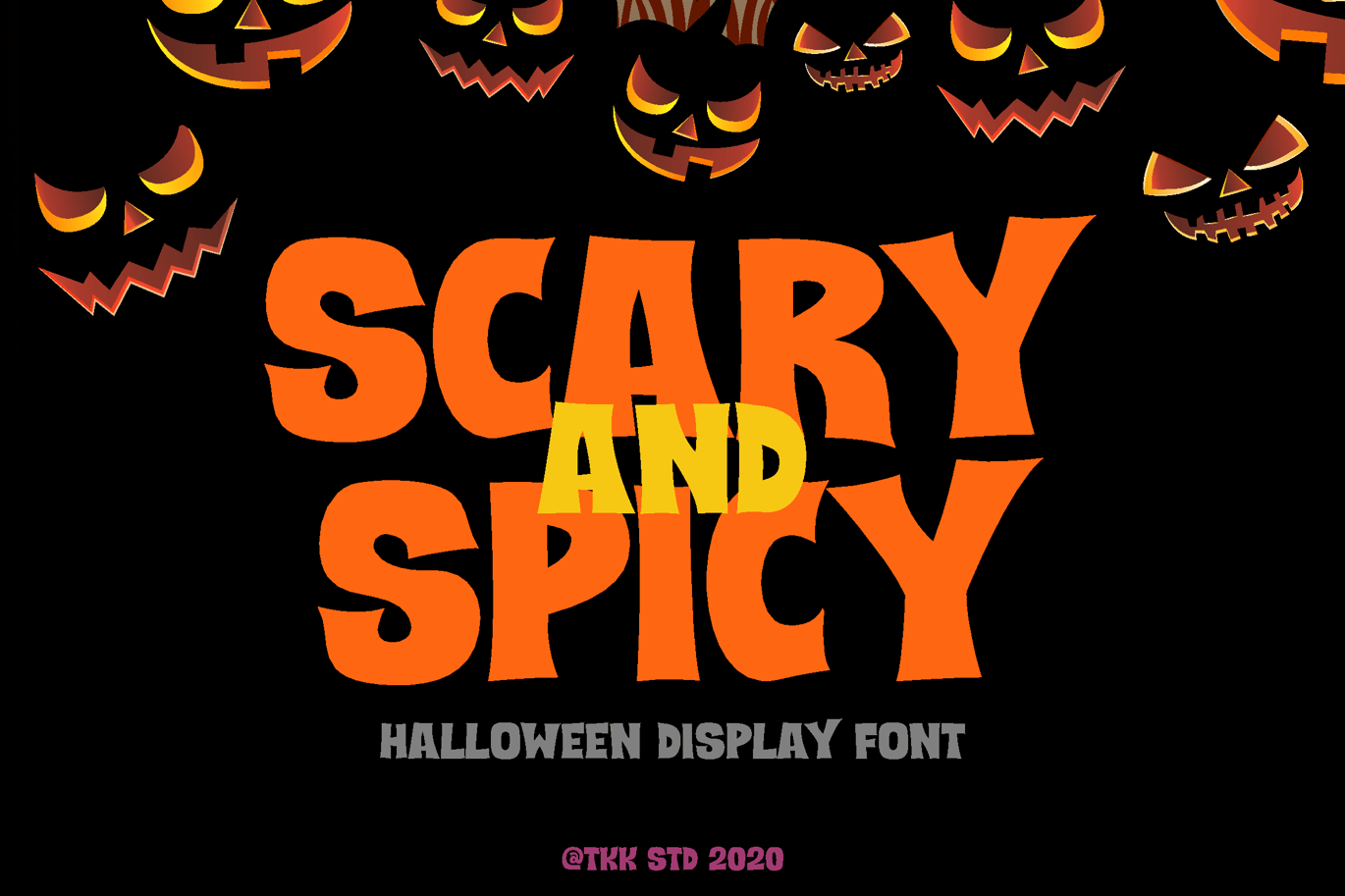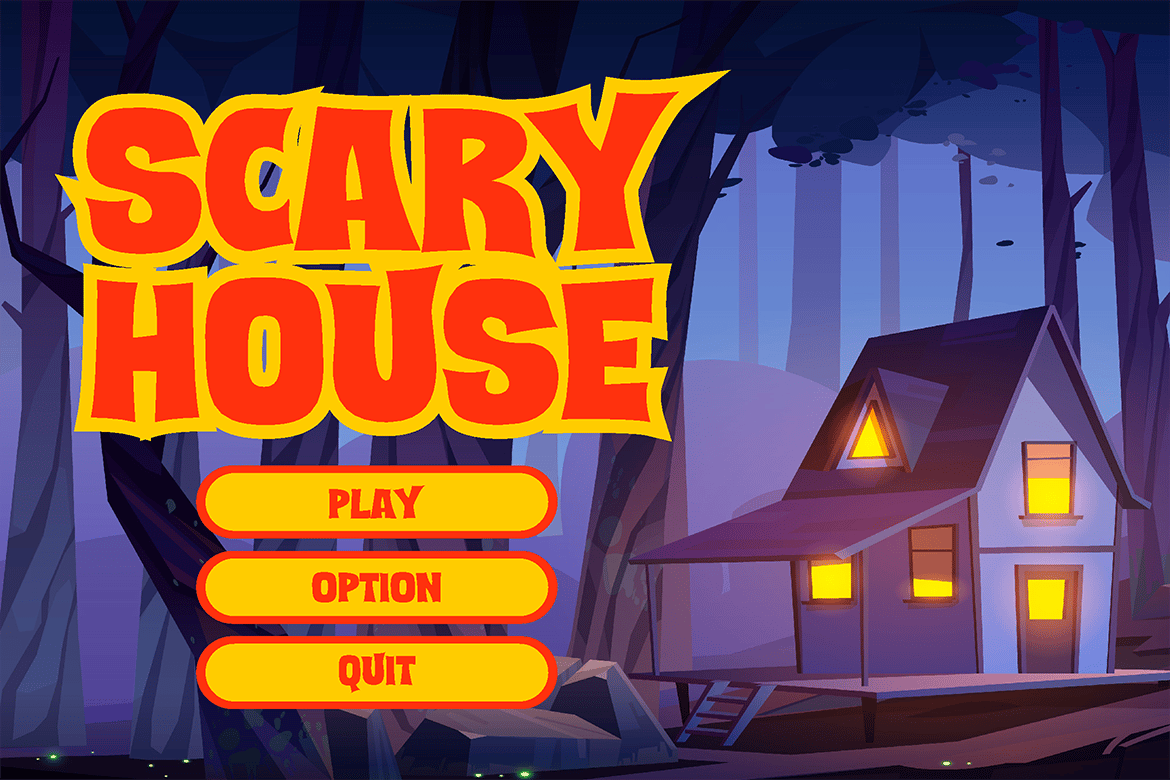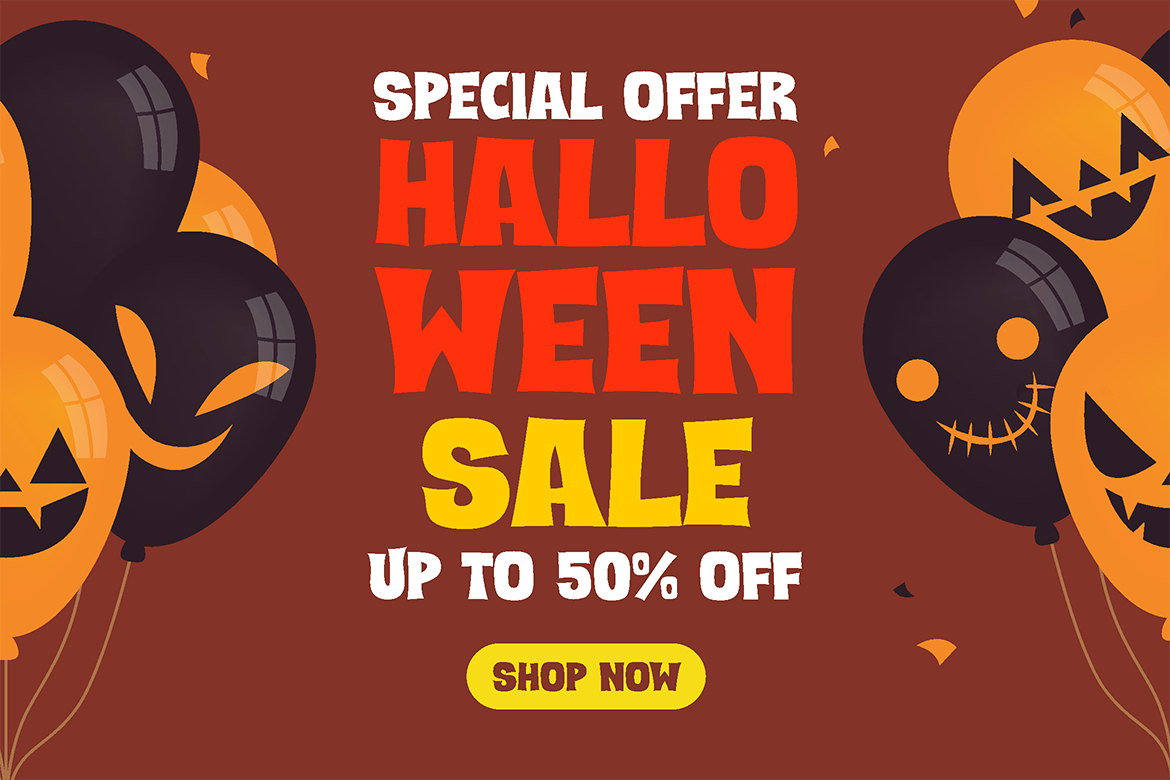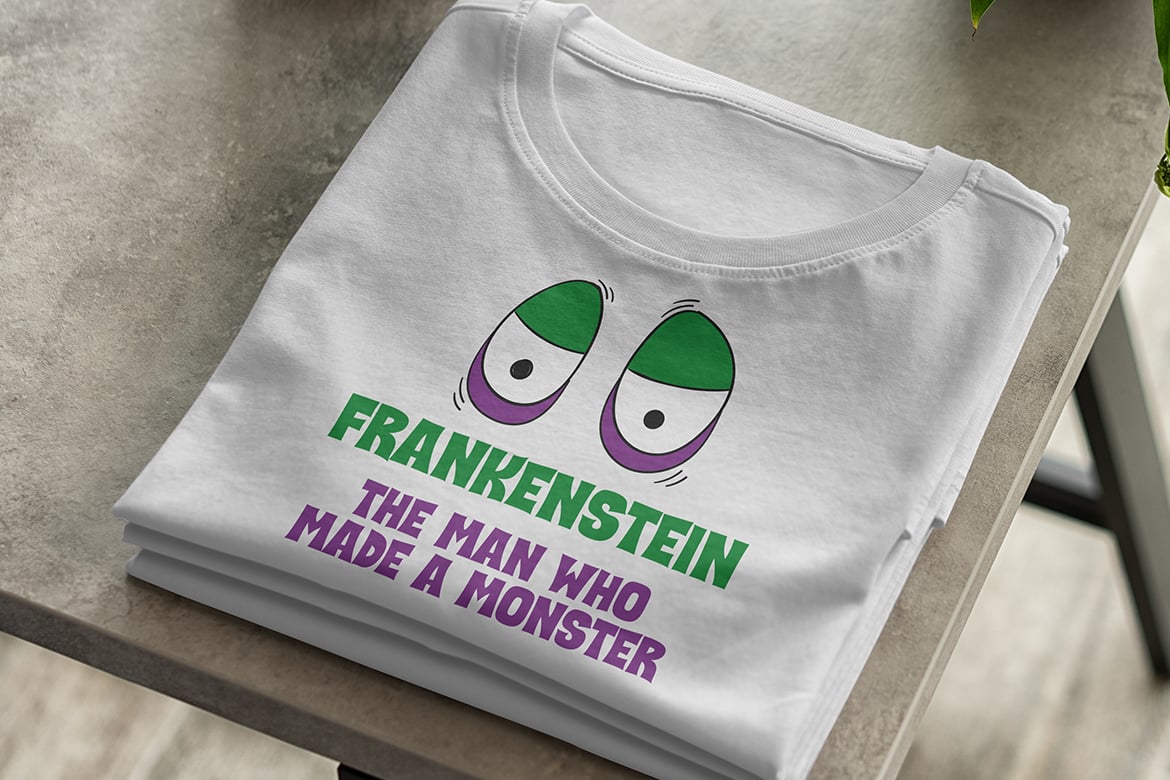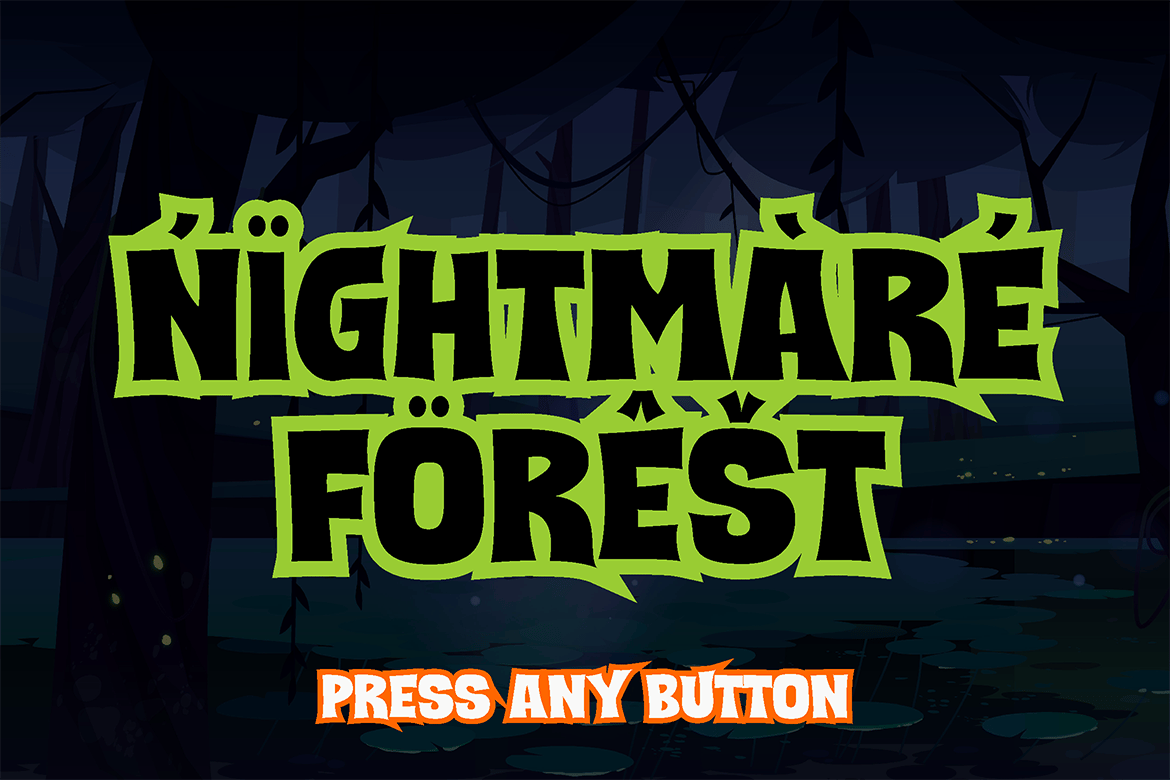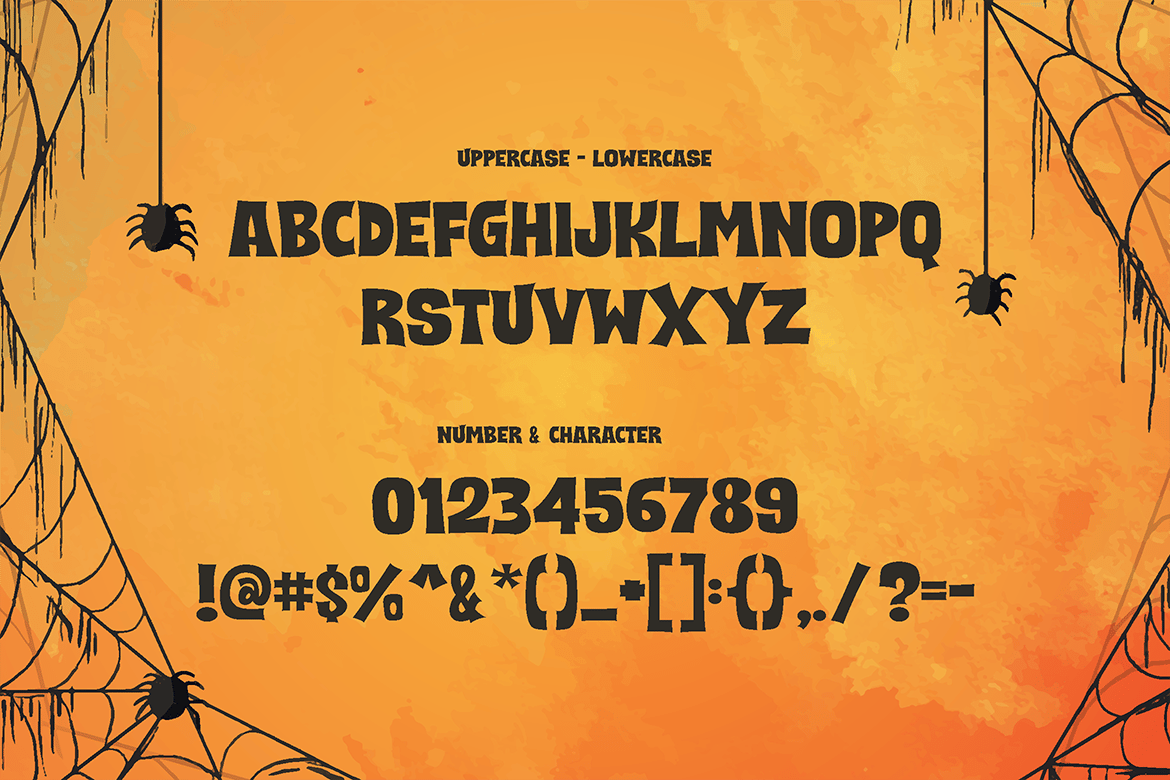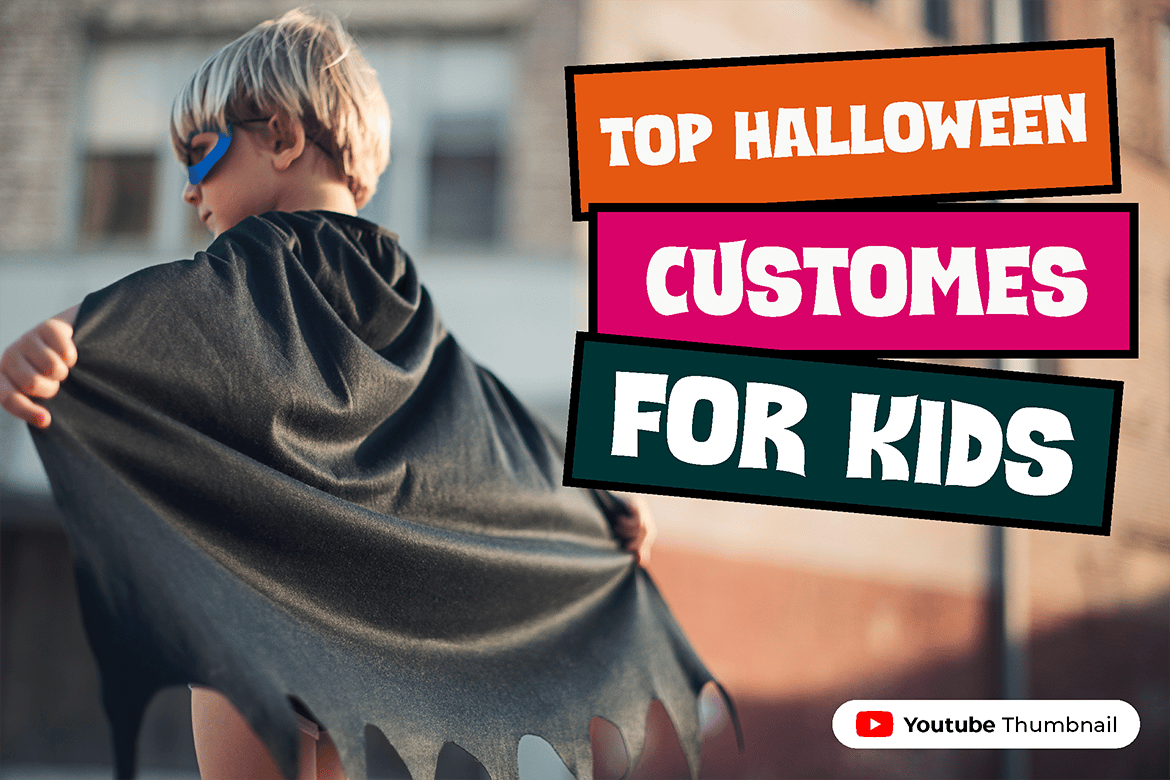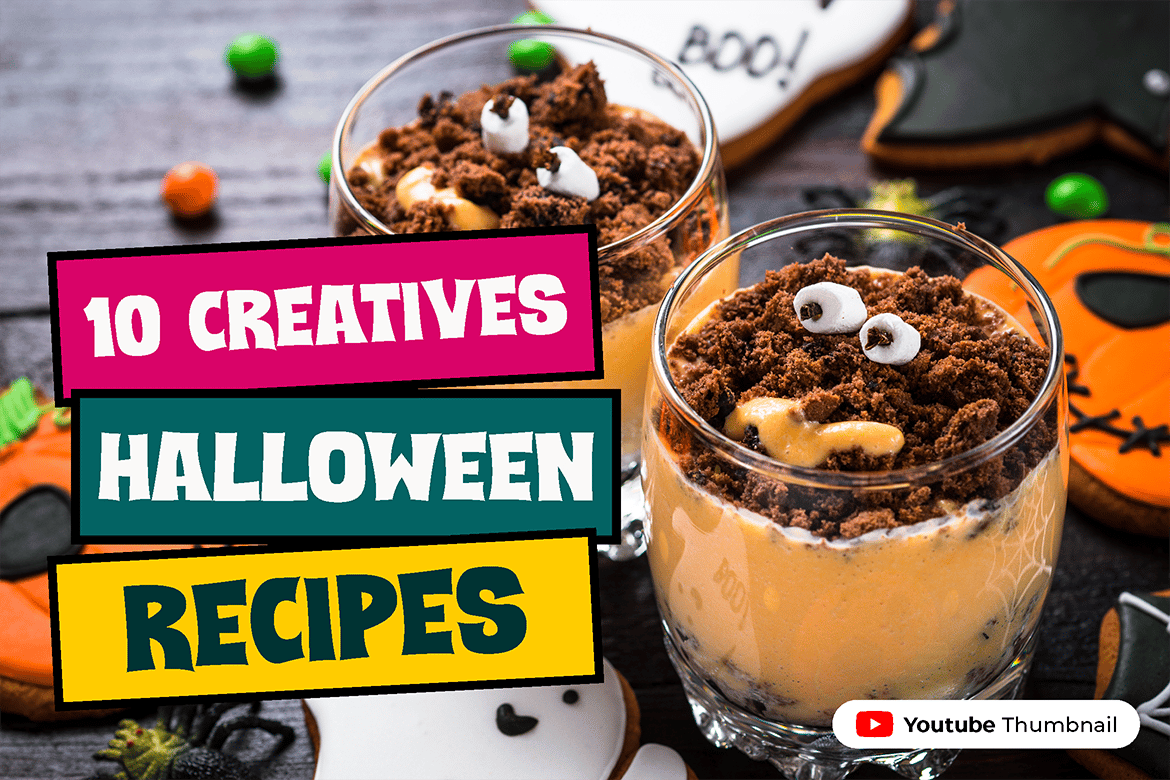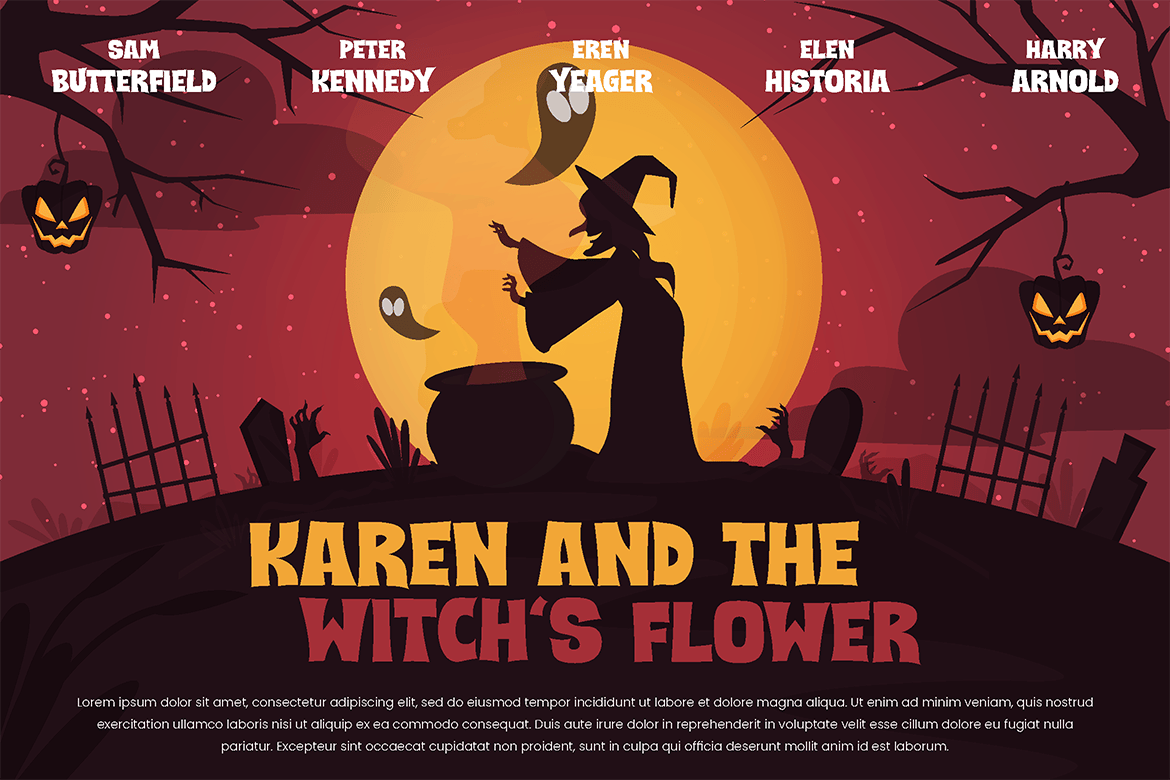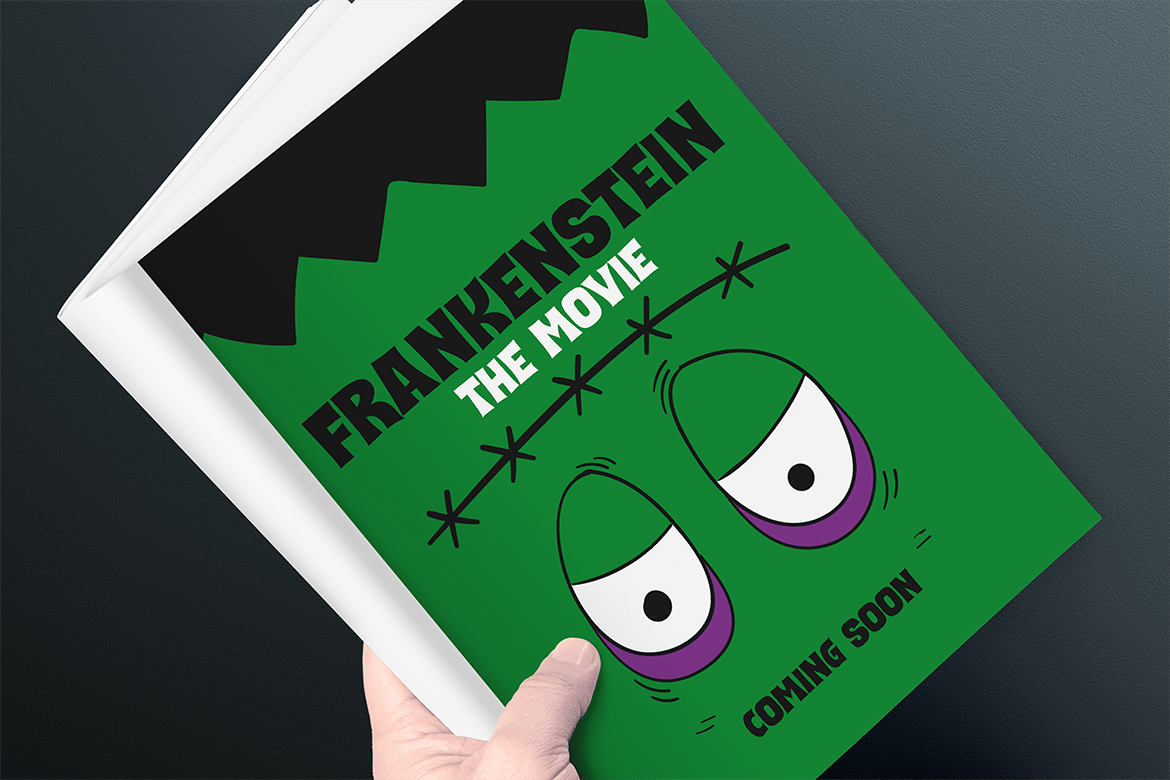
Scary and Spicy – Horror Creepy Font
Imagine a witch fly by on her flying broom, the owl hooting, the wolf howling, the poison juice bubbling…
it is SCARY !
Suit perfectly for Halloween event, scary movie, spooky poster and flyer, monster themed online games, poster, movie title, fast food menu, magazine, youtube covers, youtube thumbnails, social media page covers and so on…